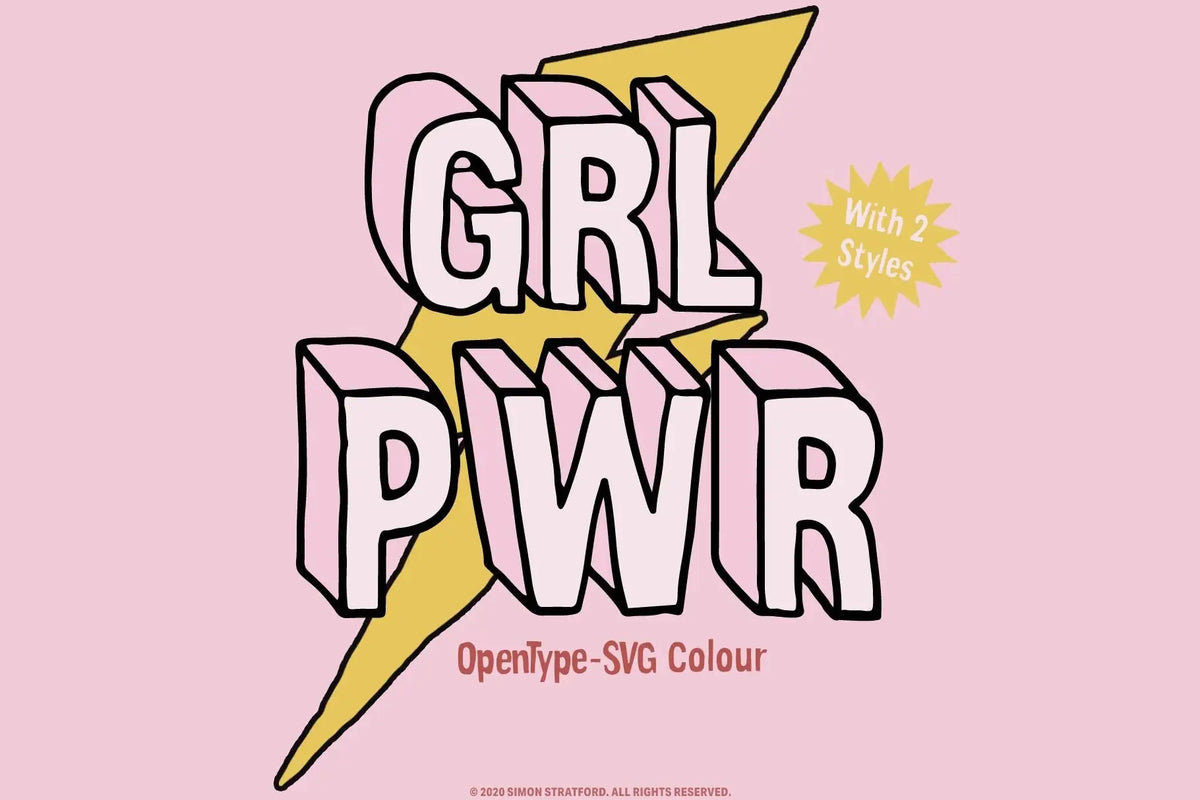
GRL PWR is a hand-drawn 3D colour font inspired by the girl-boss quotes I keep finding on Pinterest. Pink letters, thick black outlines and deliberately wobbly drawing.
It started with girl-boss quotes on Pinterest
It came from that particular corner of Pinterest and Instagram filled with hand-drawn slogans, bright pink lettering and messages about confidence, ambition and getting on with it. Some were beautifully polished; others looked as though they’d been drawn in five furious minutes, which was often the bit I liked most. GRL PWR borrows that energy rather than copying any one piece of lettering.
Drawing GRL PWR in Procreate
I drew the font directly in Procreate on my iPad.
Procreate is quick and easy to use, which suits the way I work. I can sketch a character, change the shape, try another version and undo any bad ideas.
At this stage, I wasn’t worrying about spacing, kerning or any of the technical parts of making a font. I was concentrating on the character of the letters.
I wanted the lines to look wobbly and sketchy. Not badly drawn, but clearly drawn by hand. If I’d smoothed every curve and corrected every small irregularity, GRL PWR would have lost the thing that made it interesting.
The uneven lines aren’t mistakes I forgot to fix. They’re the point.
GRL PWR feels distinctive because the handmade wobble hasn’t been cleaned out of it. That sits against a chunky 3D structure, bright pink faces and heavy black outlines, so it feels halfway between lettering and a working font.
It has enough consistency to type with, but not so much that every character looks factory-made.
Working on the details in Illustrator
Once the drawings were taking shape, I moved them into Adobe Illustrator.
This is where I worked on the details, refined the outlines and made the placement of the letters more consistent. The letters still needed to feel loose, but they also had to work together as an alphabet.
Making the glyphs work together takes longer than you’d think. Nudge one over, tweak another, realise the first one was better where it was. Make coffee. Start again.
Clean up too little and the font feels unfinished. Clean up too much and it starts looking like every other polished display font. I wanted to keep the movement in the original sketches.
Why GRL PWR is pink and black
The colour choice was much easier. Pink kept it bright and not too serious; the heavy black outline gave it the boldness I wanted.
The black outline is what makes the 3D effect work. It separates the pink front from the sides; without it, the whole thing starts turning into one big pink lump.
The colour combination also fitted the original Pinterest inspiration. It’s confident, cheerful and a bit excessive, which felt right for a font called GRL PWR.
The main ingredients are fairly simple:
- Bright pink lettering for colour and energy
- Heavy black outlines to define the shapes
- Chunky extrusion to create the 3D appearance
- Wobbly lines to keep everything feeling handmade
It’s not subtle, but that was never the plan.
Turning the drawings into a working font
Drawing the letters is the creative part. I love that bit.
Turning those drawings into a font is a different matter. You import the characters, line them up, sort out the spacing and start typing words to see what looks wrong. Something always looks wrong.
I used Fontself for Illustrator to convert the artwork into a typeface. I love Fontself because it saves an enormous amount of time and makes the process far less painful.
It doesn’t magically finish the font for you. The artwork still needs preparing and the characters still need checking. But it removes a lot of the repetitive technical work between drawing the alphabet and producing something you can install and type with.
More time drawing.
What makes GRL PWR an OpenType SVG colour font?
GRL PWR uses the OpenType SVG colour font format.
This allows the colour, outlines and 3D artwork to sit inside each character. When you type in compatible software, the letters appear with their pink faces, black outlines and extruded sides already in place.
You don’t need to rebuild the effect for every word.
That’s the useful part. GRL PWR gives you something closer to finished lettering while keeping the speed and convenience of typing with a font.
Two versions of GRL PWR are included
The download includes two styles:
- A full-colour 3D OpenType SVG font
- A standard solid vector font
The 3D version gives you the complete pink and black design. That’s the loud one.
The solid version uses the same basic letterforms without the built-in colour and extrusion. It’s useful when you want to choose your own colours, create a simpler layout or use the font in software that doesn’t support OpenType SVG.